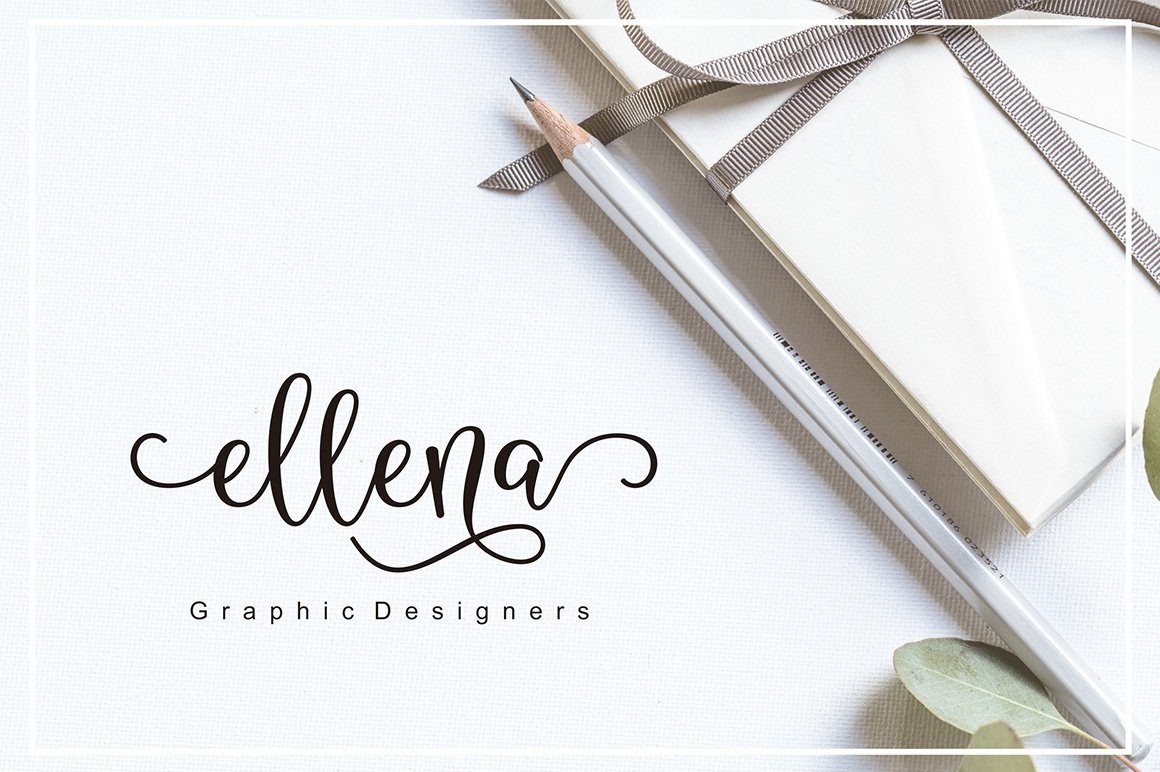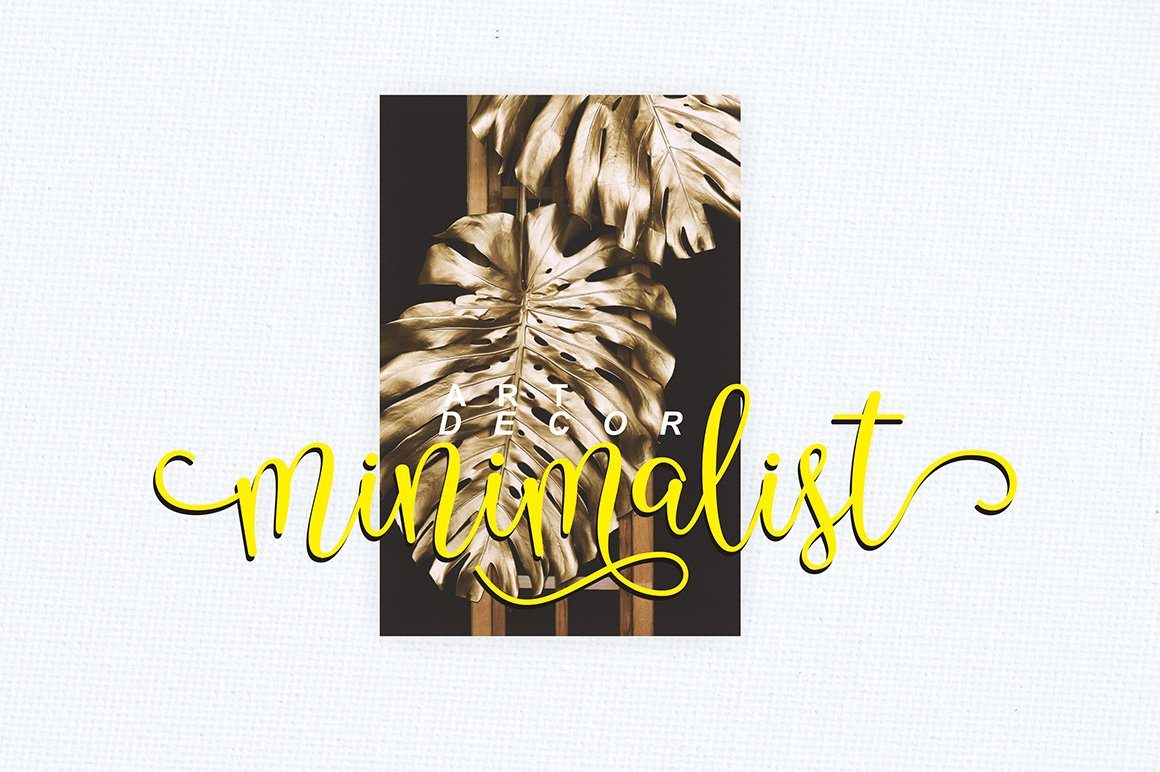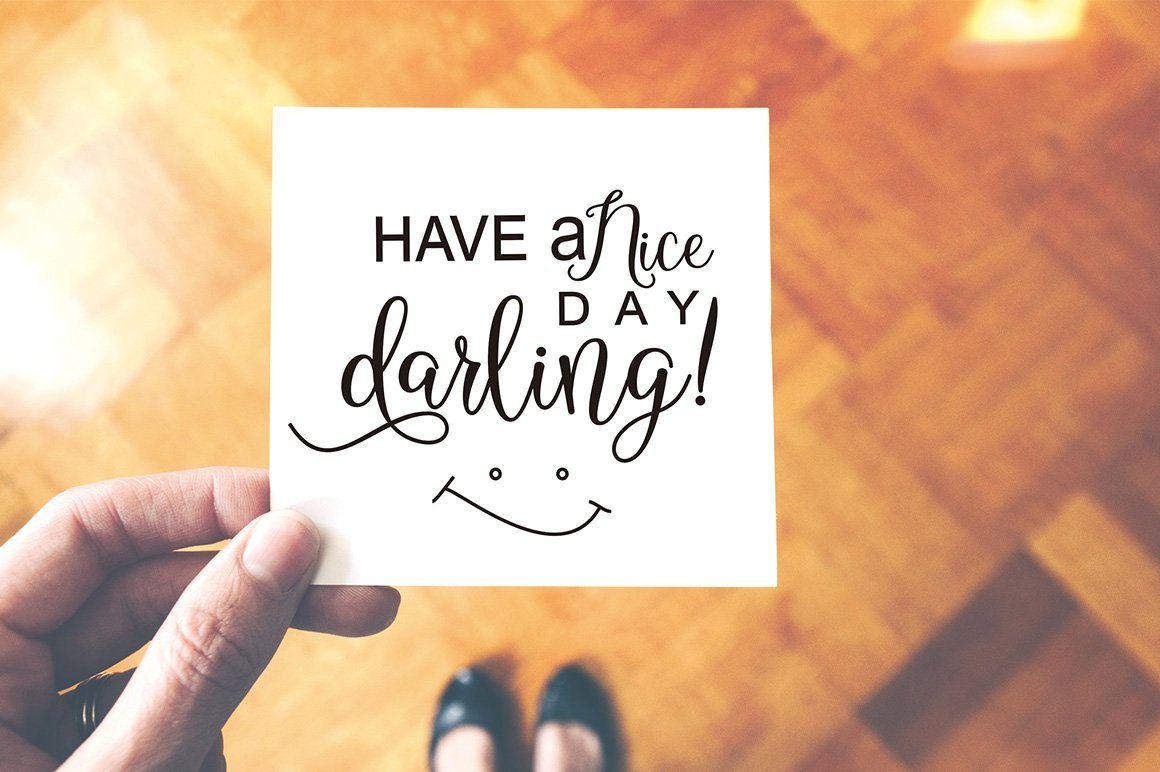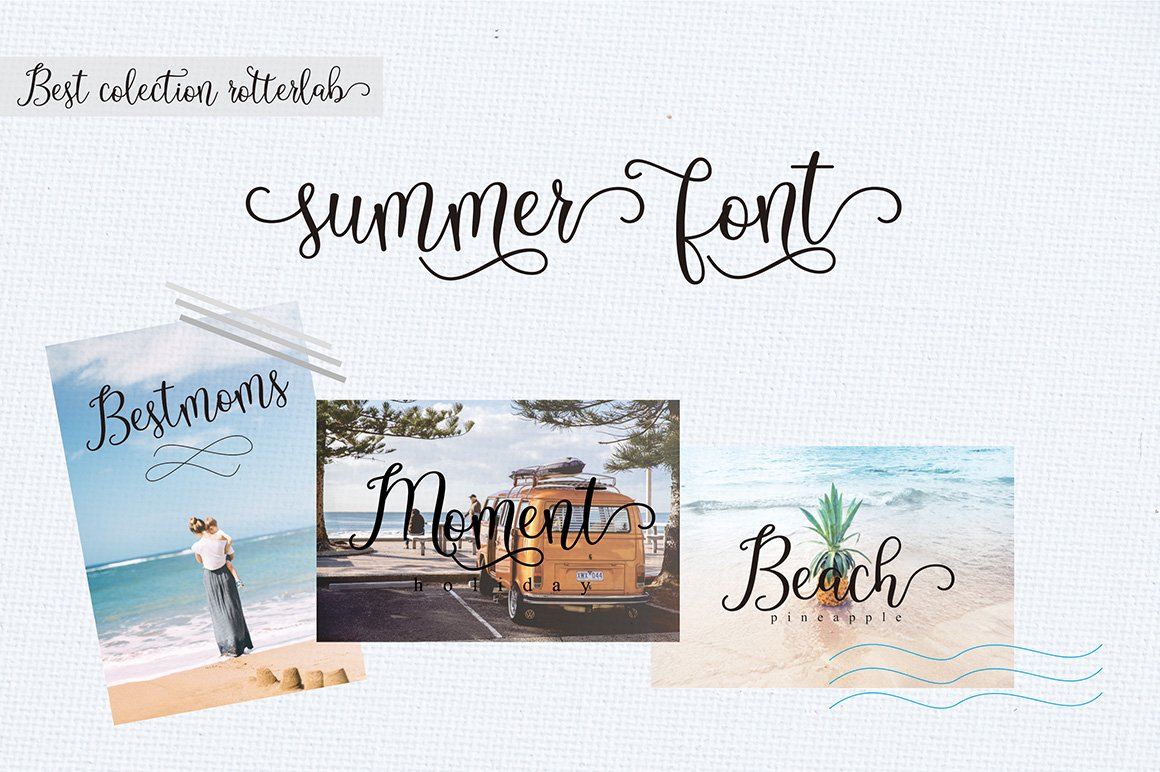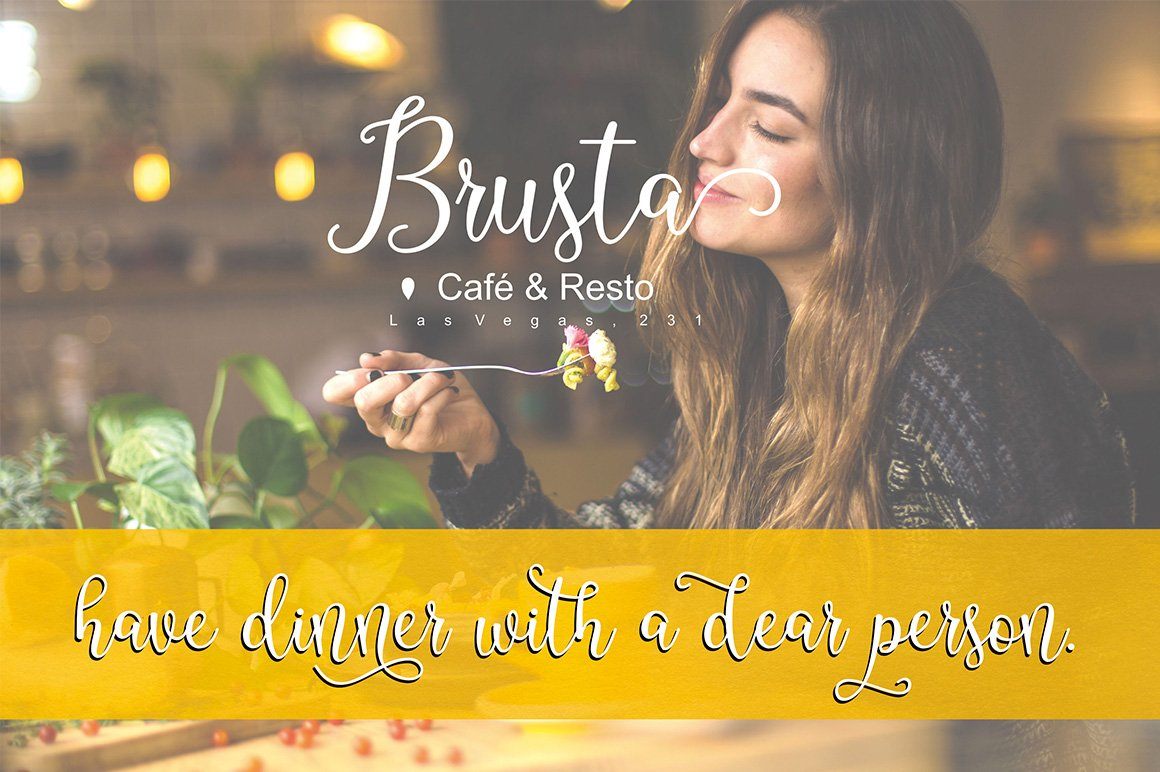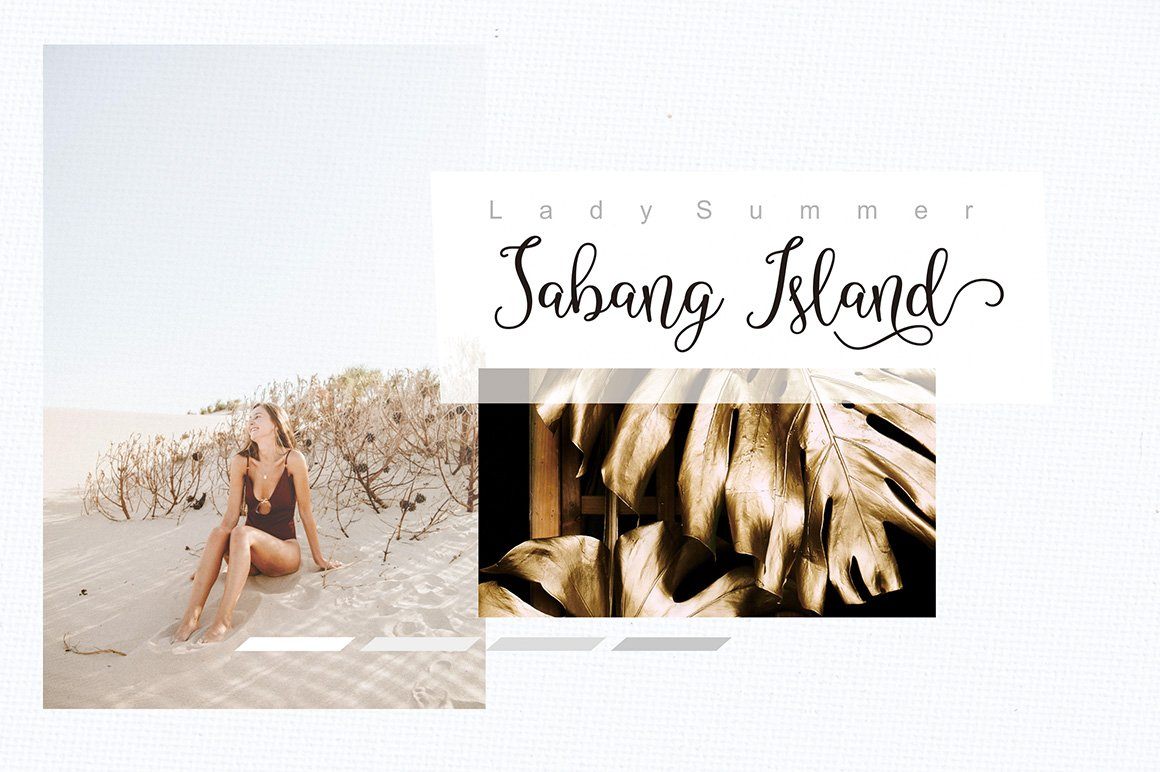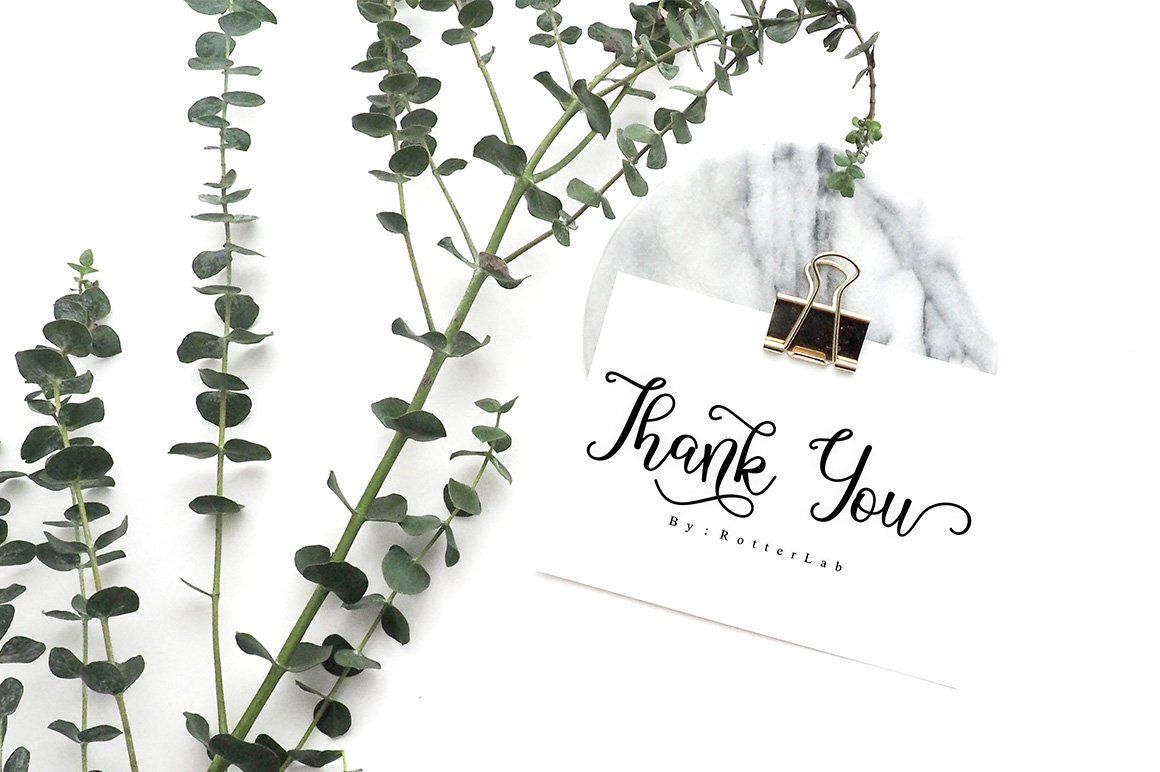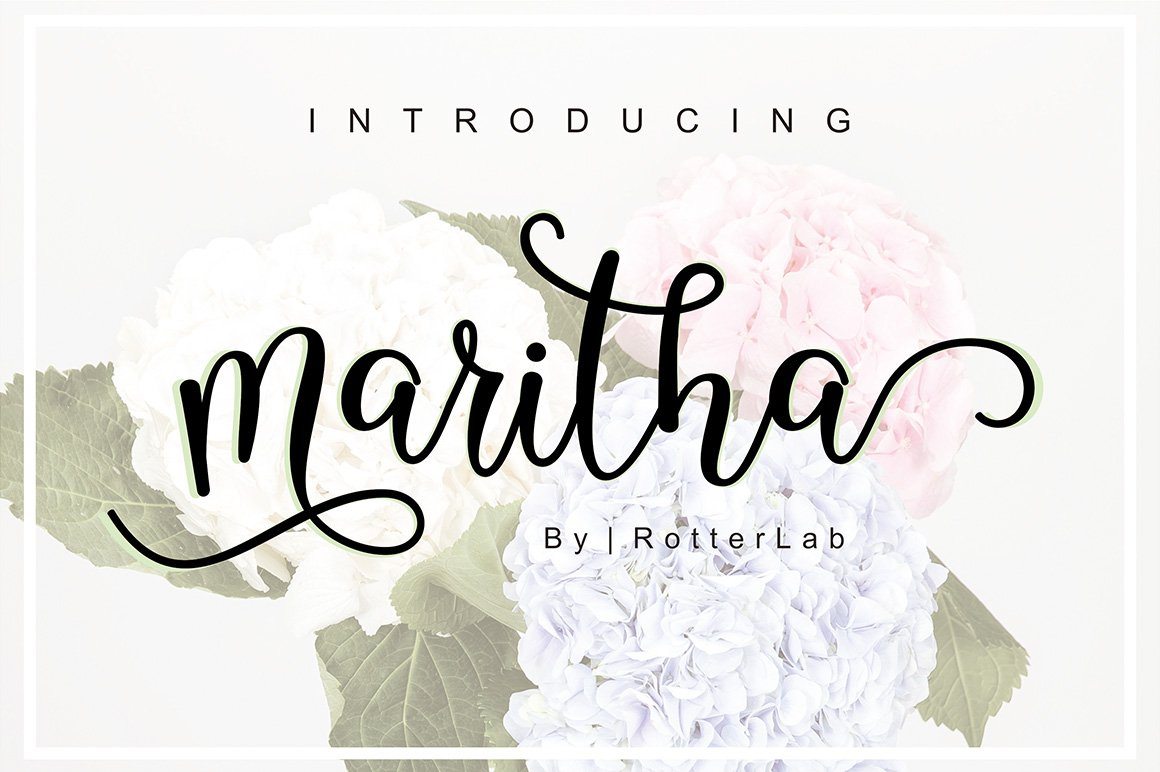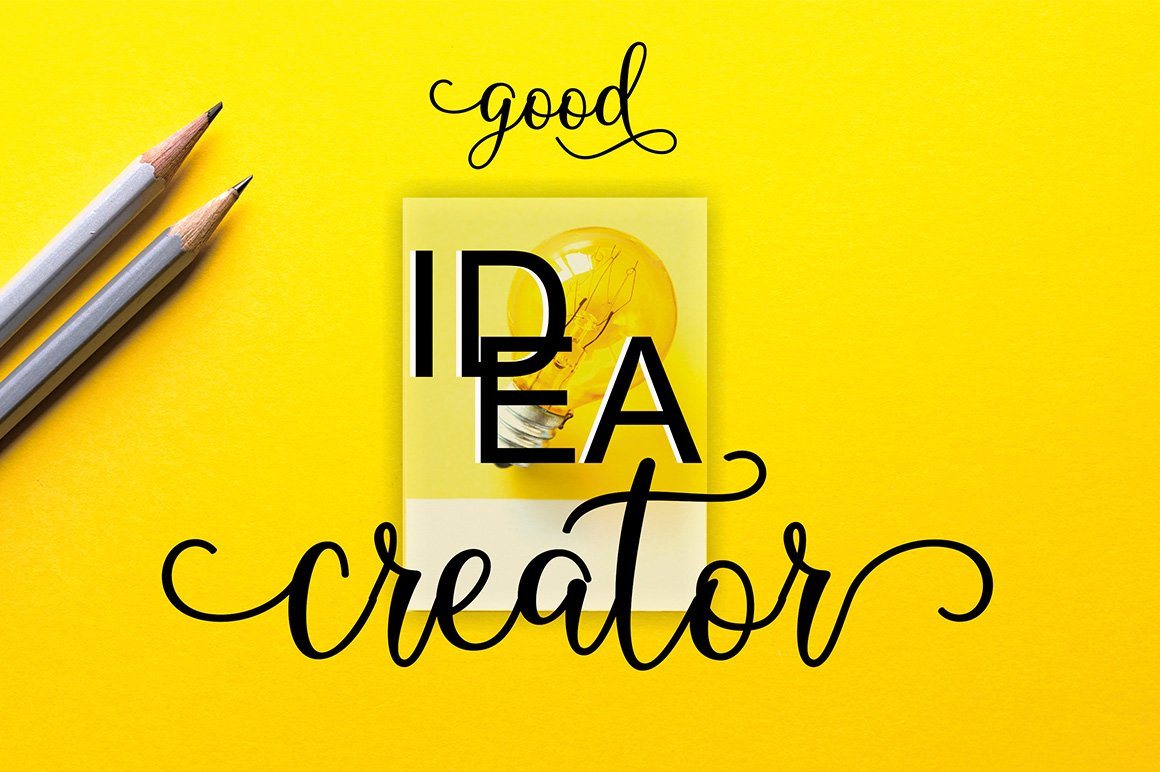
Maritha Script
Maritha Script is a modern handwritten calligraphy script, elegant, tasty flow and playful with swashes. Features Open type feature, stylistic alternates, ligatures and International support for most Western Languages. You need a program that supports OpenType features such as Adobe Illustrator CS, Adobe Photoshop CC, Adobe Indesign. Perfect to creating modern designs like ads, sales, logos, branding, posters, social media text overlays and wedding invitation. All lowercase letters include alternates, beginning & end swashes, that makes the font look fabulous! Maritha Script typeface includes : Maritha Script Regular OTF Maritha Script Regular TTF These are all coded with PUA Unicode. Mac users can use Font Book and Windows users can use Character Map to view and copy any of the extra characters to paste into your favourite text editor/app. How to access all alternative characters: – https://www.youtube.com/watch?v=Go9vacoYmBw – https://www.youtube.com/watch?v=XzwjMkbB-wQ – https://www.youtube.com/watch?v=x1A_ilsBsGs – https://www.youtube.com/watch?v=xFlMwARHusY Thanks and Happy Creating 🙂